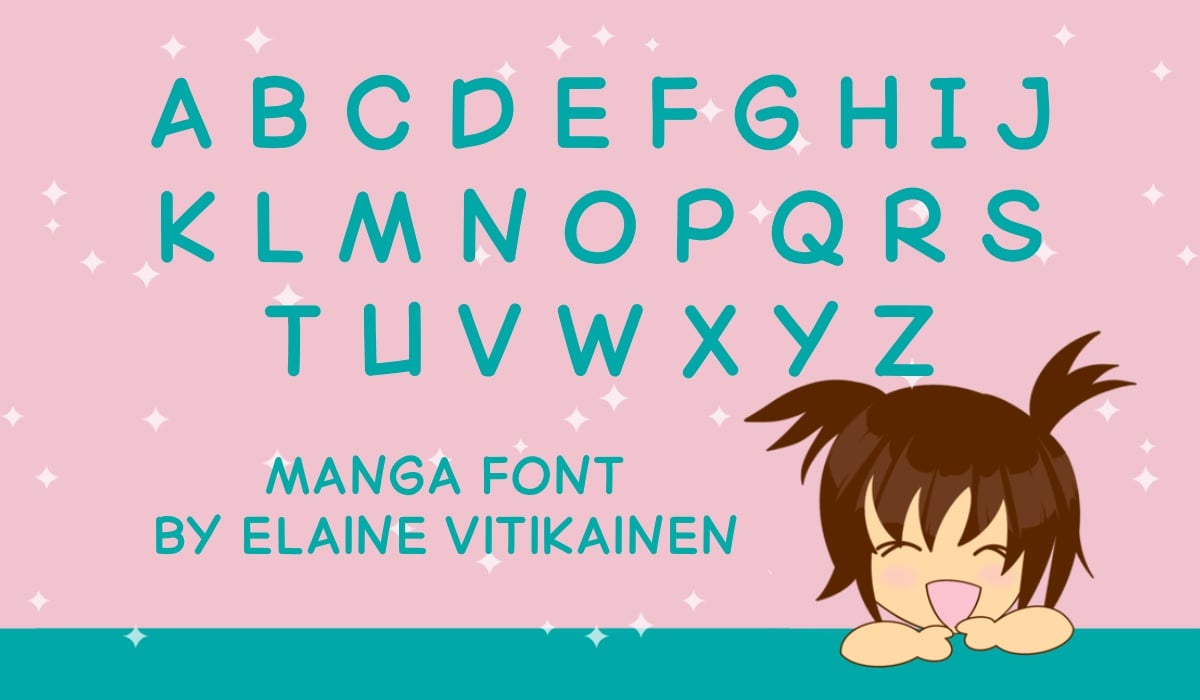
Manga Font
Elaine Vitikainen
I love creating fonts and I love to share them with you. This font set is called Manga Font. I was requested to create this font to be used for comic arts. This font is for personal and commercial use.